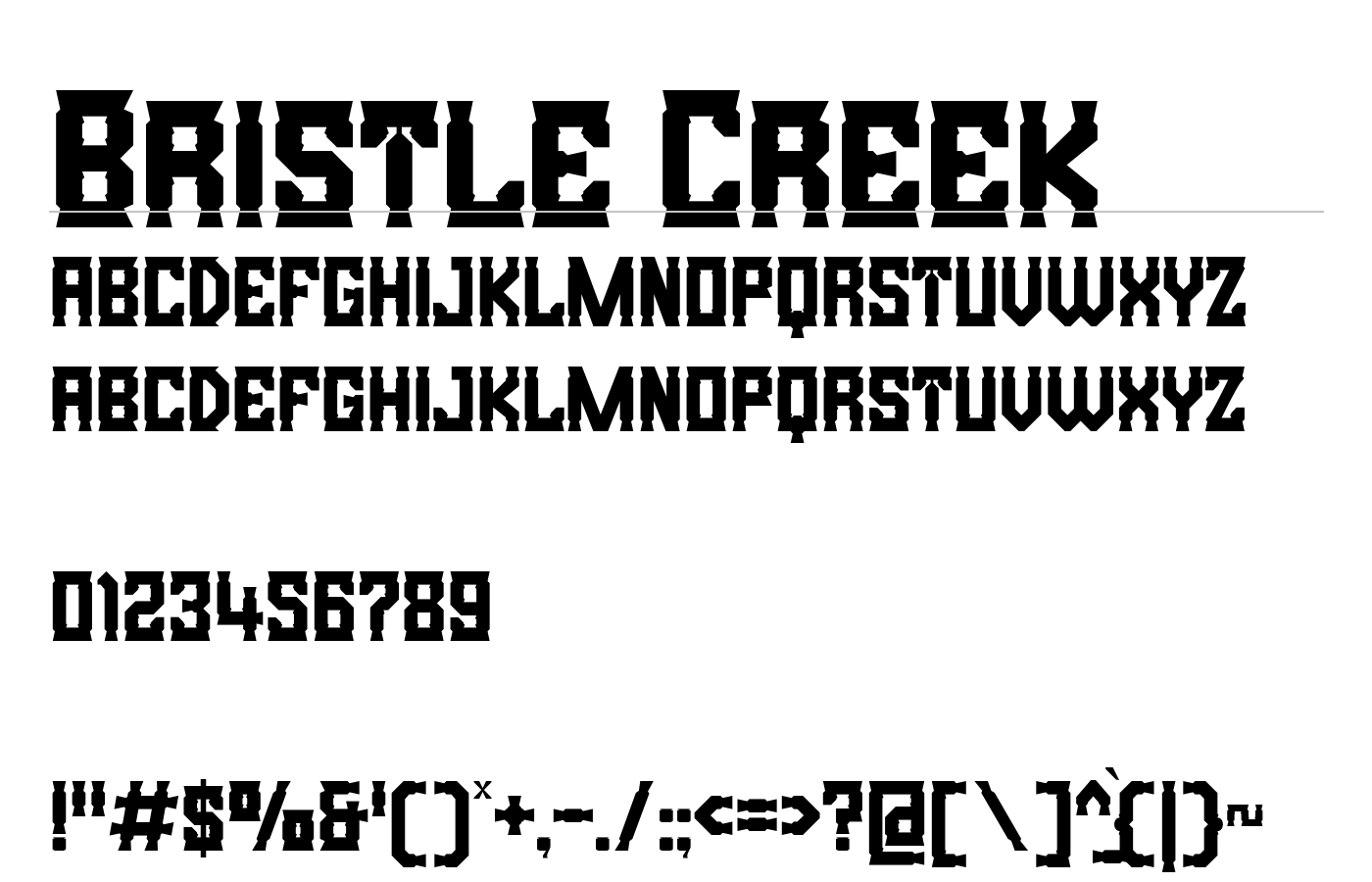
Bristle Creek is a bold, condensed slab serif font with a rugged, blocky appearance and high contrast between thick and thin strokes. Its sharp, geometric serifs and strong vertical lines give it a vintage Western or industrial vibe, making it ideal for striking headlines, posters, and branding that needs a bold, tough character. This font suits designs that call for a sturdy, dramatic presence while maintaining clear readability.
Bristle Creek Font
About Bristle Creek Font